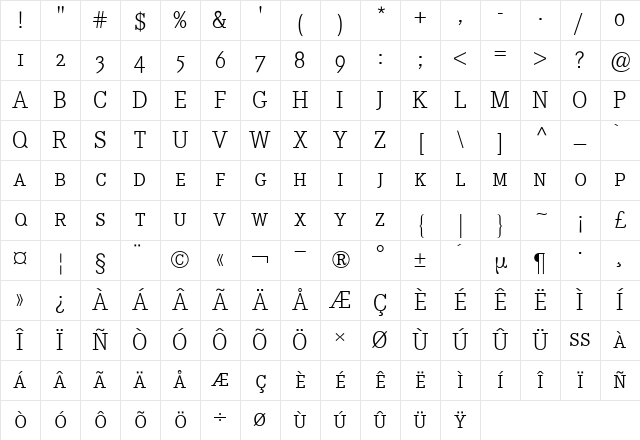
Corporate E Expert BQ Regular Free Font
Corporate E Expert BQ Regular
Complete Corporate E Expert BQ Regular glyph index. Displaying only characters natively supported by Corporate E Expert BQ Regular font.
Design Context for Corporate E Expert BQ
Corporate E Expert BQ is a composed and adaptable typeface that performs quietly and consistently across a wide range of design contexts.
Pro Tip: Use Corporate E Expert BQ in both headline and body roles to test its range before committing to a single application.